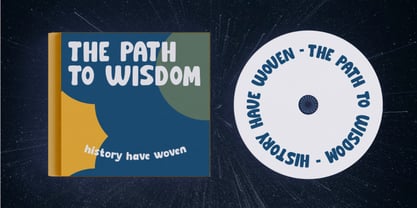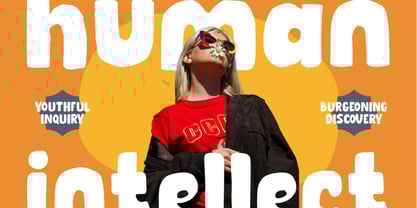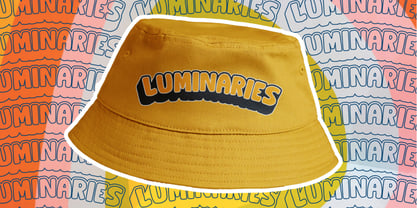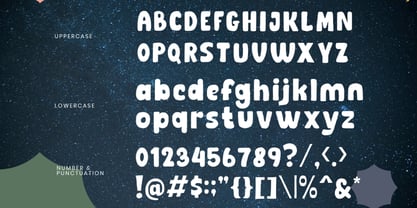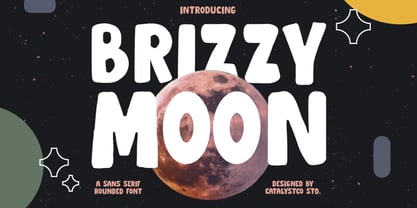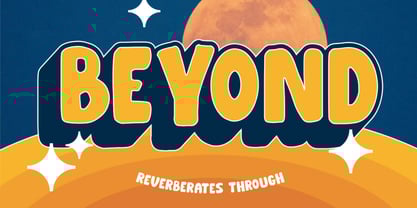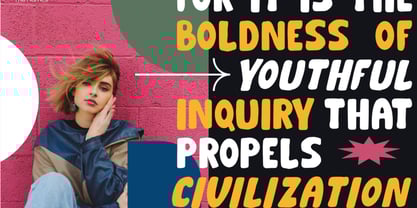
Brizzy Moon
Brizzy Moon is a bold, bubbly sans serif rounded font designed to bring a cheerful and energetic touch to your creative work. With thick strokes, soft edges, and a handcrafted feel, Brizzy Moon is perfect for kids’ projects, fun branding, editorial layouts, playful quotes, and social media graphics. Brizzy Moon is ideal for creatives, educators, and designers looking for a vibrant and expressive font that adds joy and energy to any visual project. Whether you're working on children’s book covers, toy packaging, Instagram graphics, or fun product branding, Brizzy Moon delivers a lighthearted yet bold style.